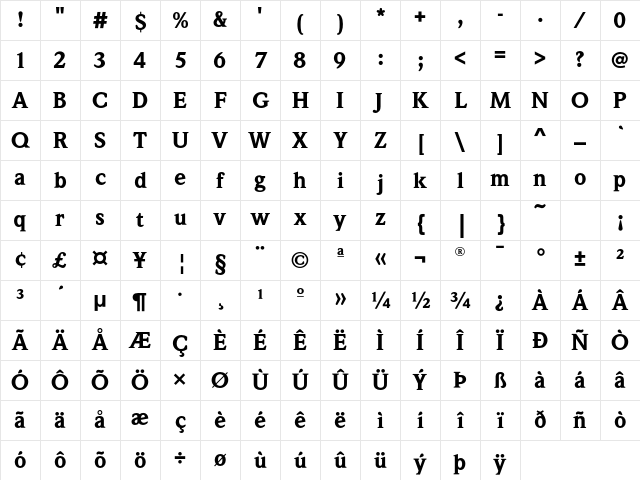
Complete WeidemannEF Black glyph index. Displaying only characters natively supported by WeidemannEF Black font.
WeidemannEF is a composed and adaptable typeface that performs quietly and consistently across a wide range of design contexts.